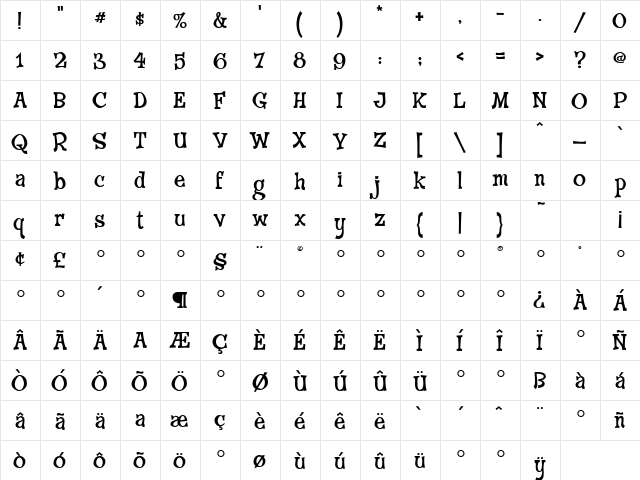
FinkRoman Regular
Design Context for FinkRoman Typeface
FinkRoman is a composed and adaptable typeface that performs quietly and consistently across a wide range of design contexts.